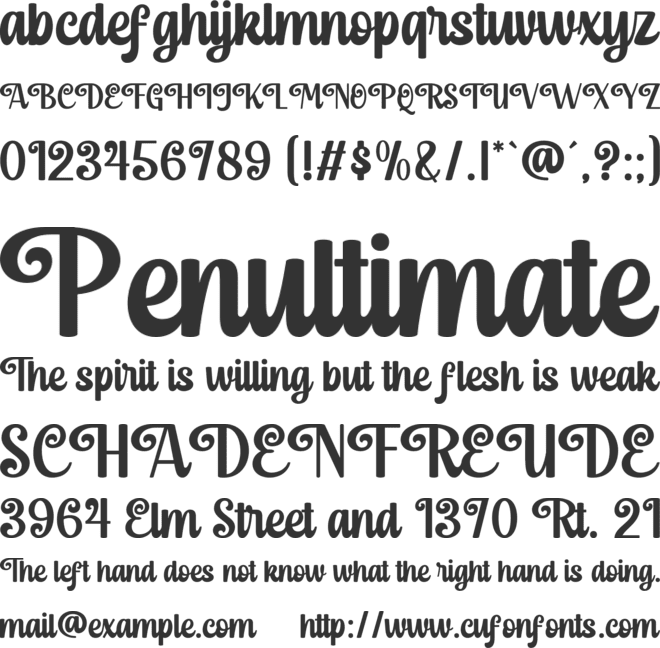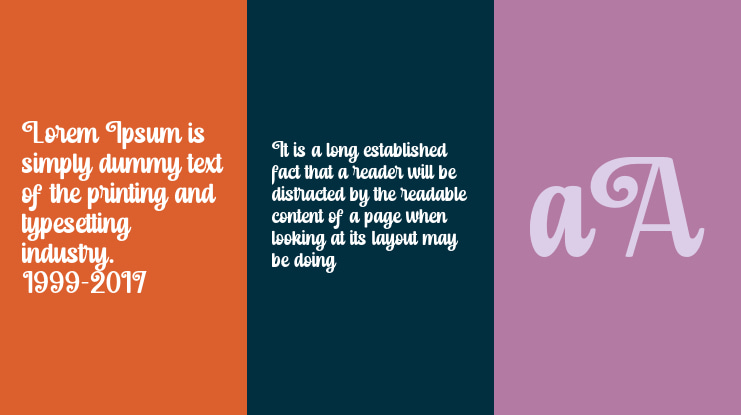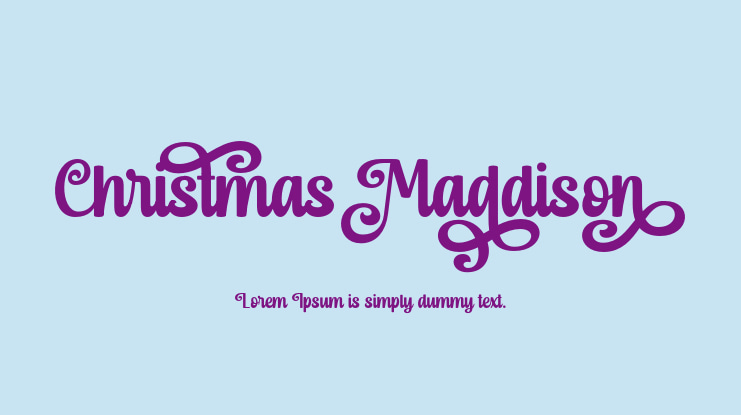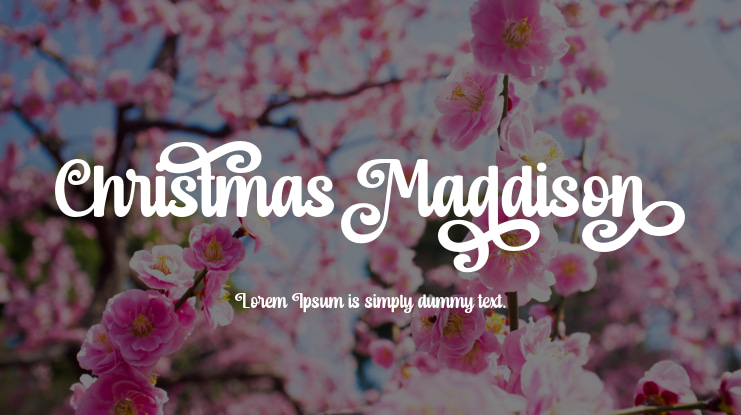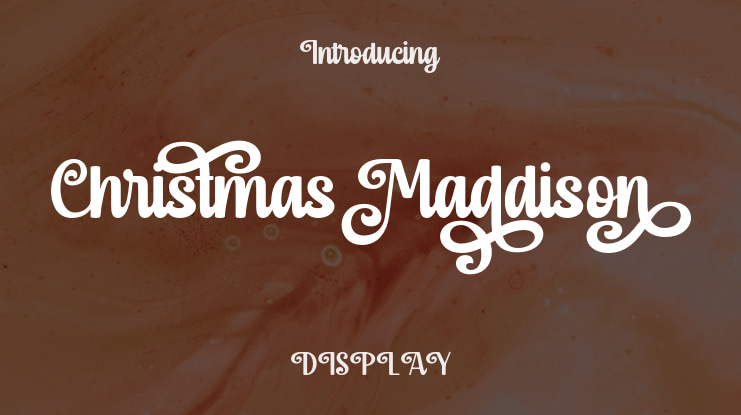
Christmas Maddison Font
Introducing Christmas Maddison, a stunning and enchanting font crafted with love. Its elegant handwriting style brings a touch of sophistication to various design projects. Perfect for expressing gratitude on thank you cards, capturing the essence of heartfelt sentiments in quotes, setting the tone for a magical wedding invitation, conveying warm wishes on greeting cards, leaving a lasting impression on business cards, and adding a personal touch to logos and more.
What sets this font apart is its PUA encoding, enabling effortless access to a multitude of striking glyphs and captivating swashes. With Christmas Maddison, let your creativity flourish and bring your designs to life with ease.